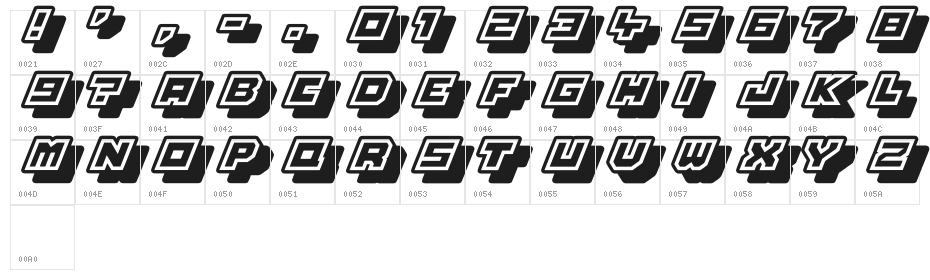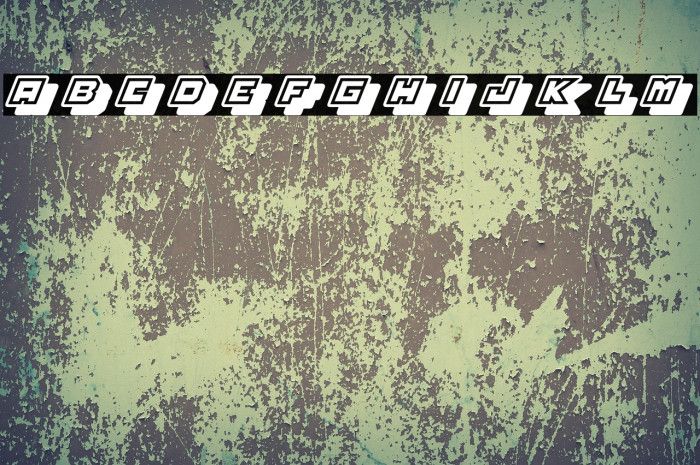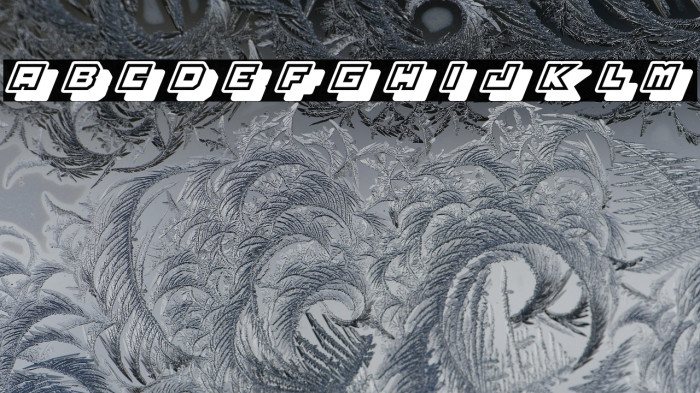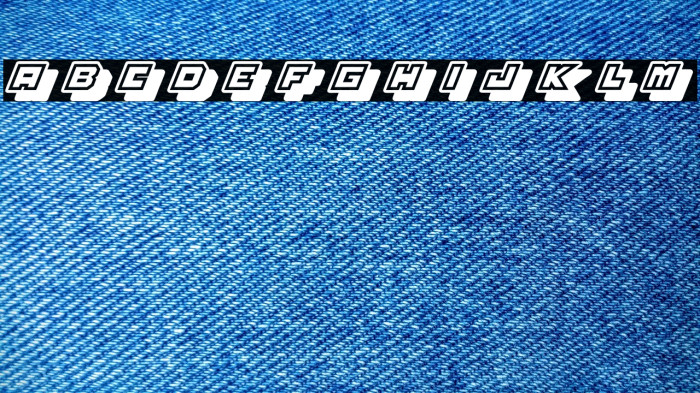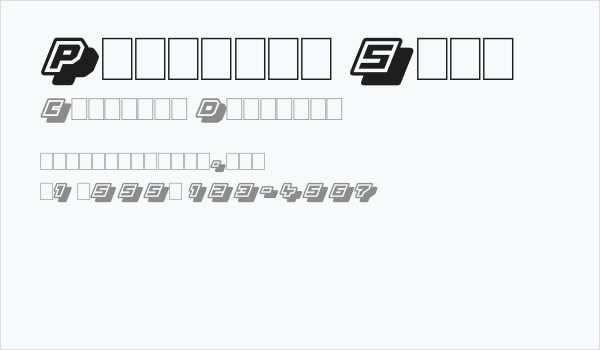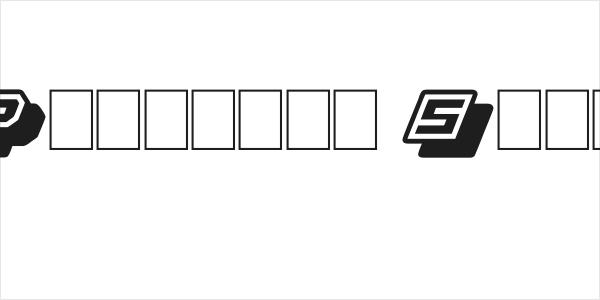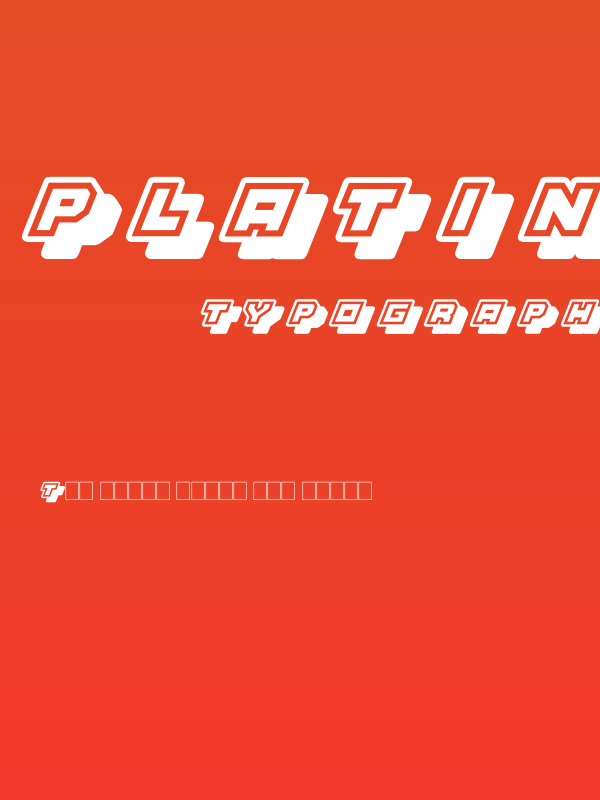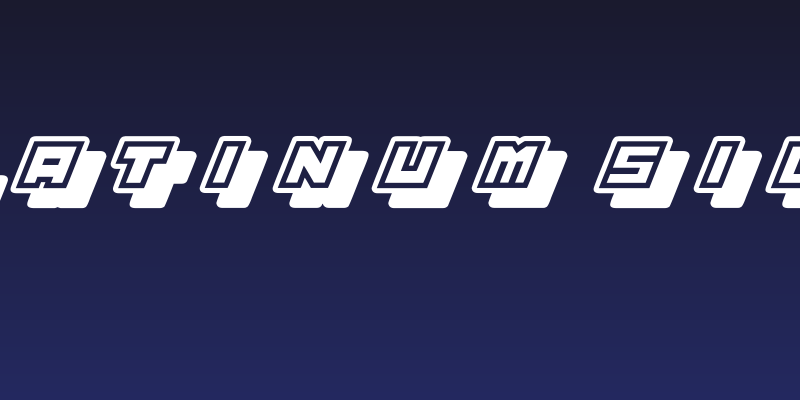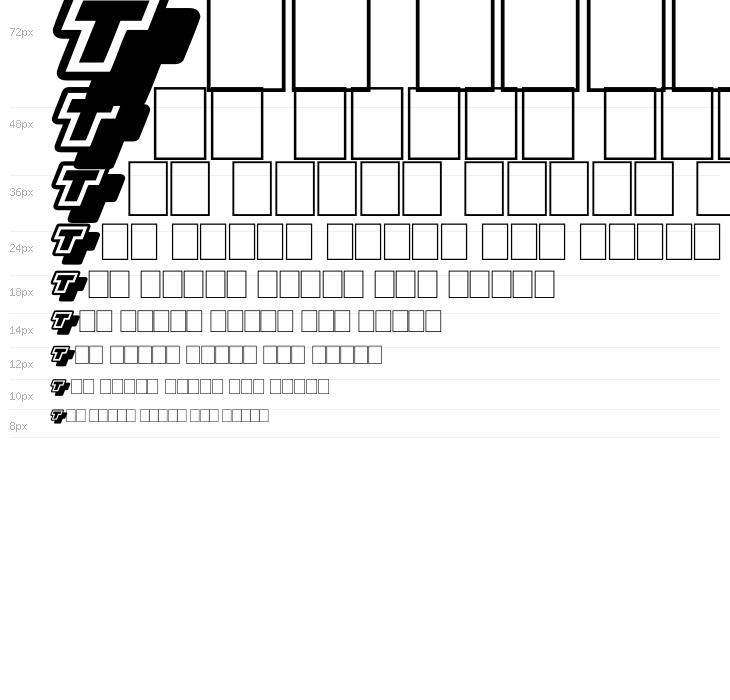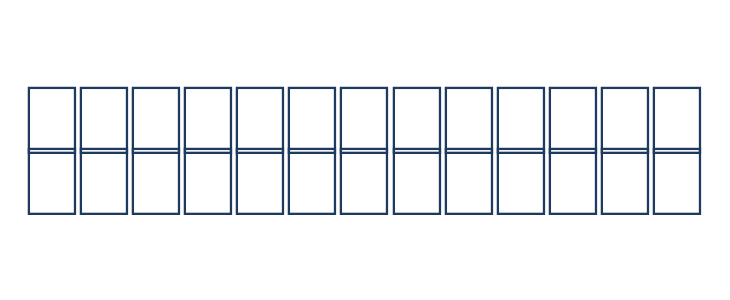
Platinum Sign Font
Platinum Sign Description
This font features a bold, three-dimensional style with a strong shadow effect that gives it a dynamic and impactful appearance. The characters are uppercase and lowercase letters, along with numbers and a selection of special characters. Each letter is outlined, creating a striking contrast between the inner and outer edges. The font has a modern, futuristic vibe, making it suitable for projects that require a bold statement. The shadow effect adds depth, making the text appear as if it's popping off the page. The overall design is clean yet attention-grabbing, perfect for titles and headlines.
| Proposed Projects | Great for posters, logos, video game graphics, and any design needing a modern, bold look. |